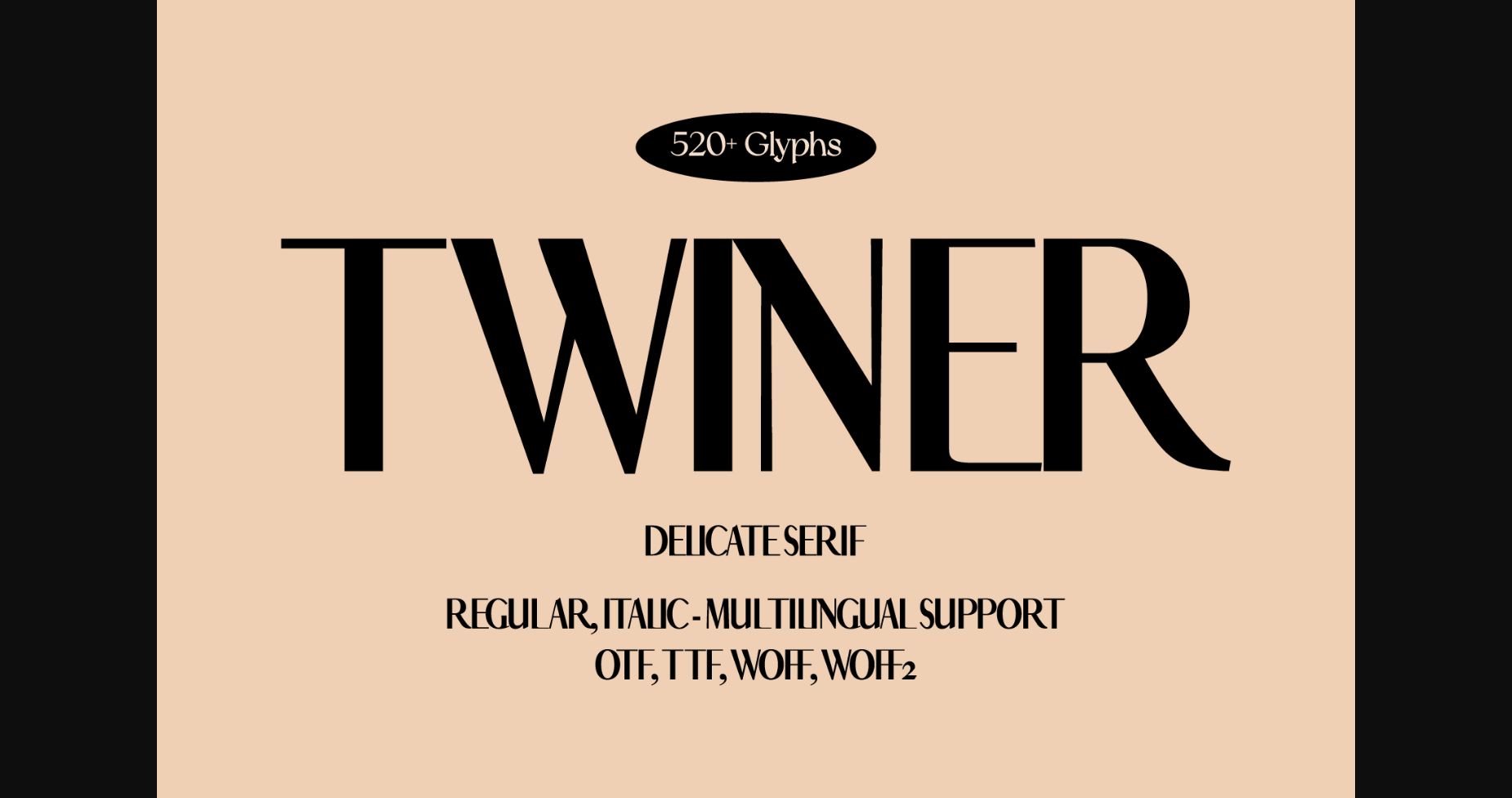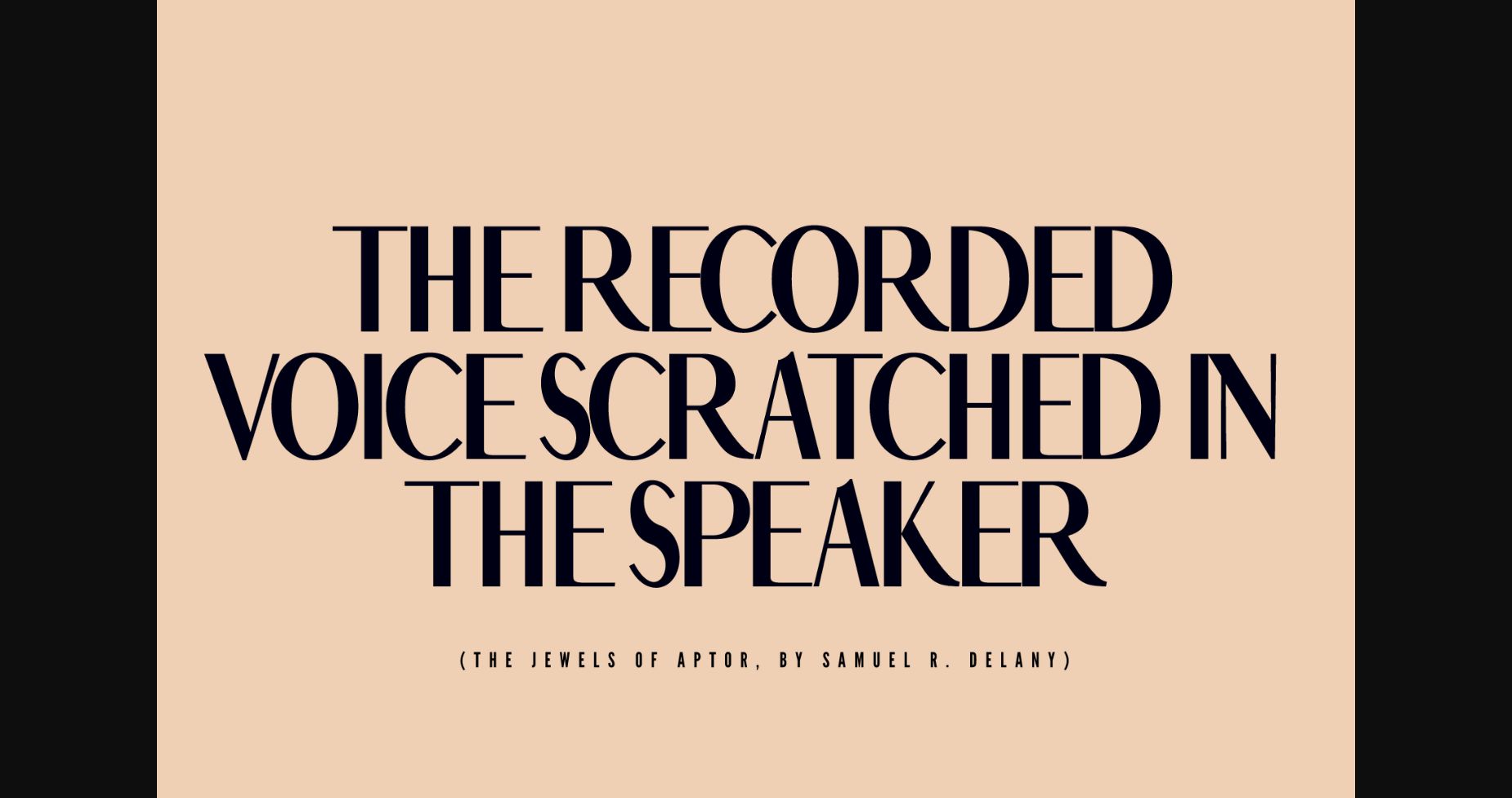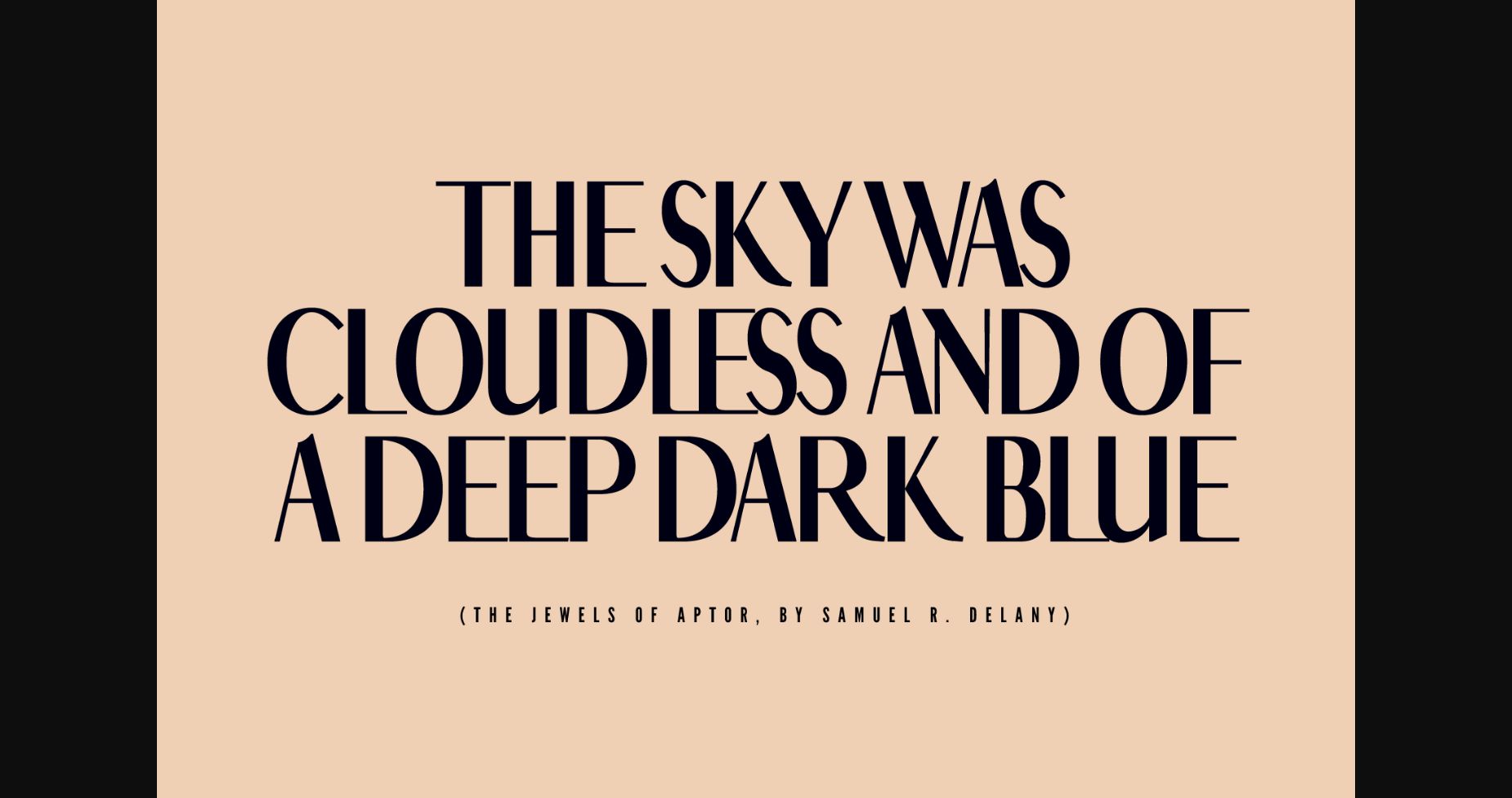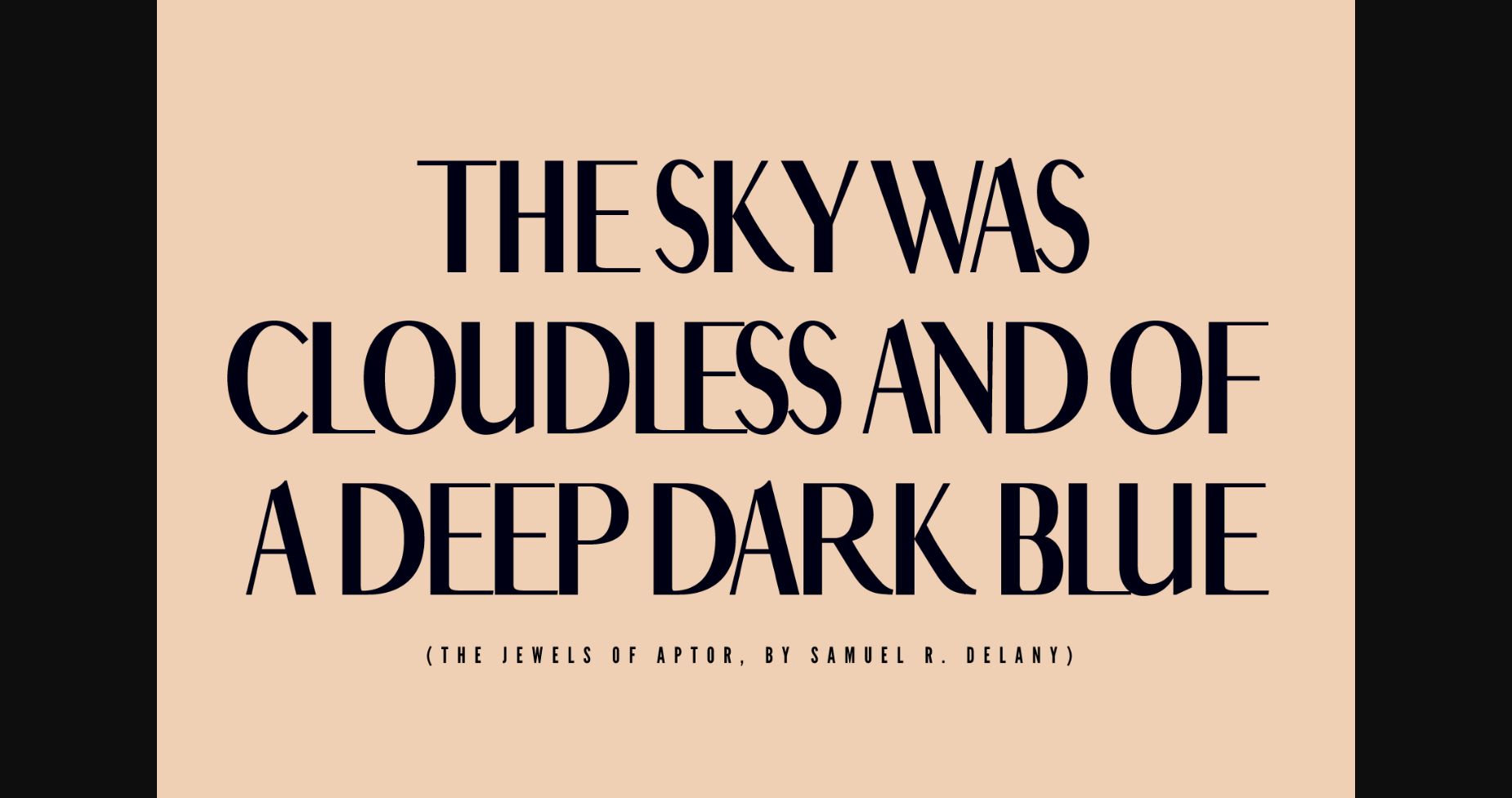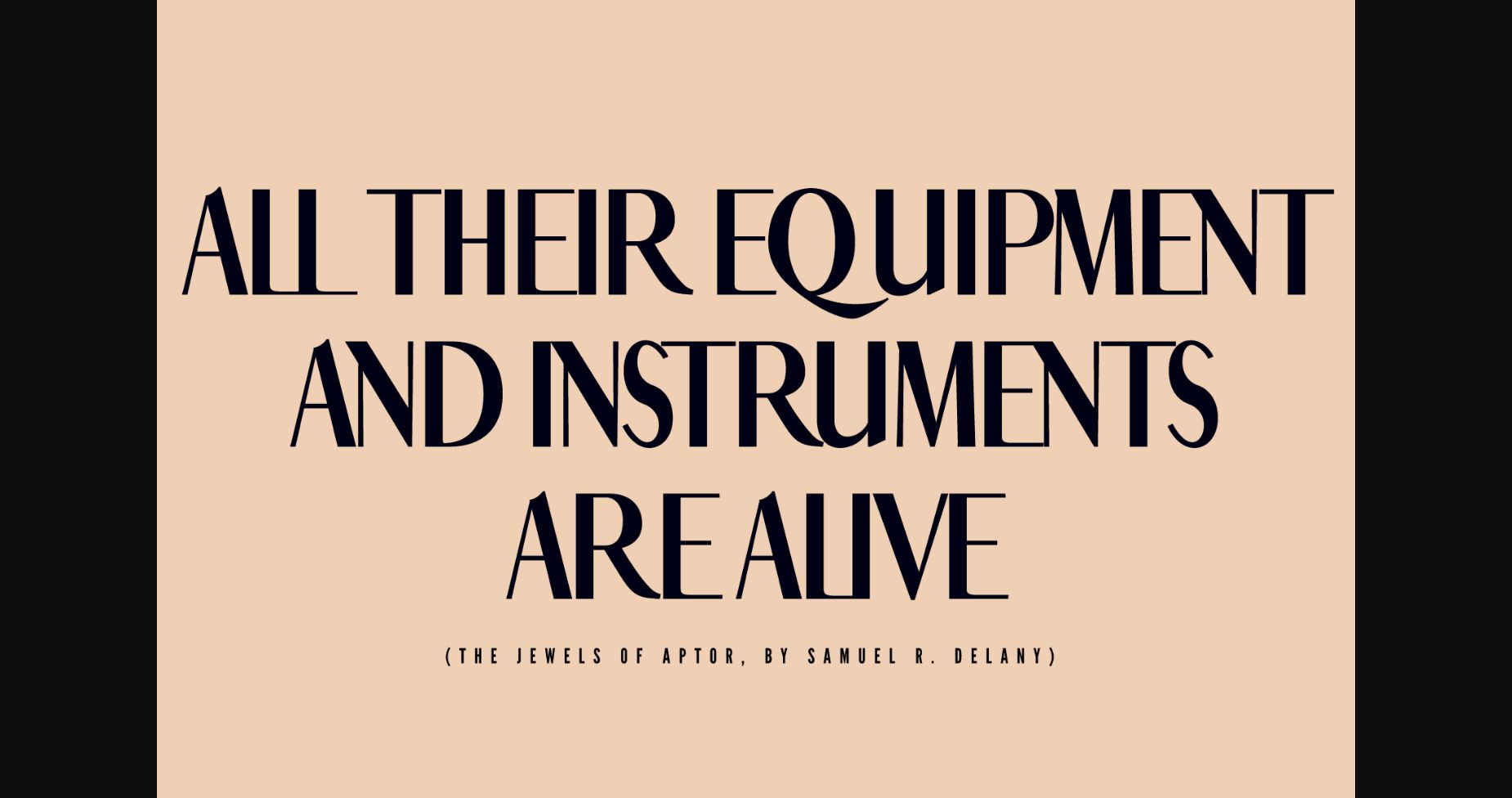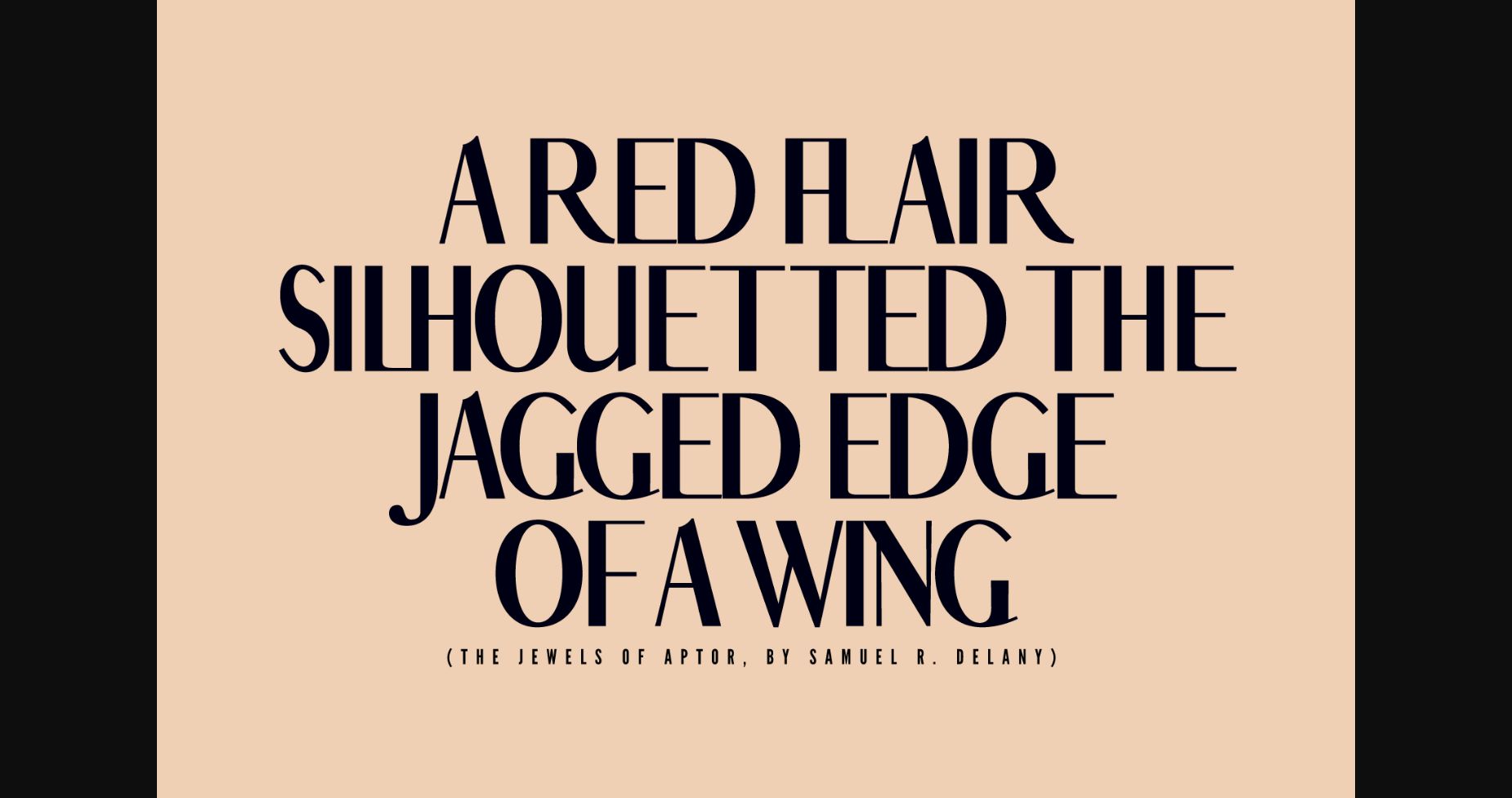
About Twiner Font
Twiner is a chic, elegant, and minimalist sans serif font perfect for branding, advertising, editorial work, and many more. Add it to your logos, presentations, books, websites, and magazine layouts, and Twiner will elevate your work and make it stand out.